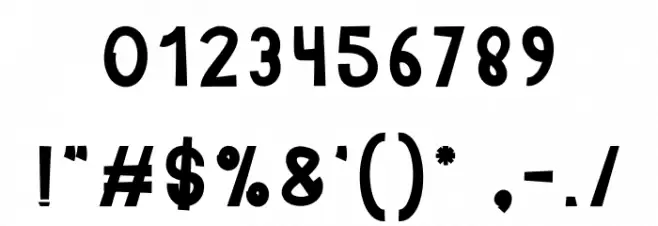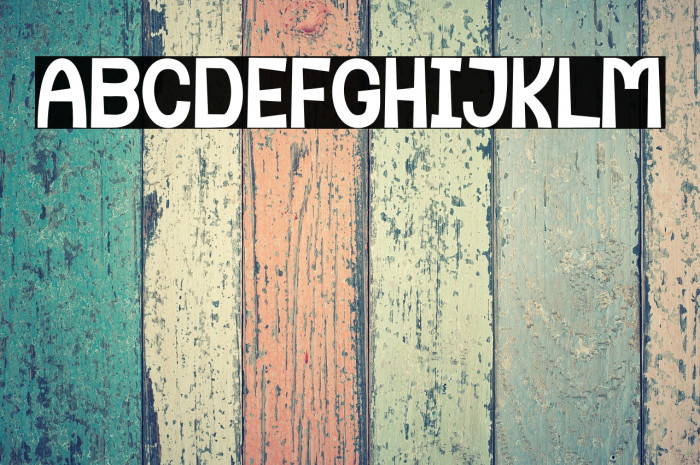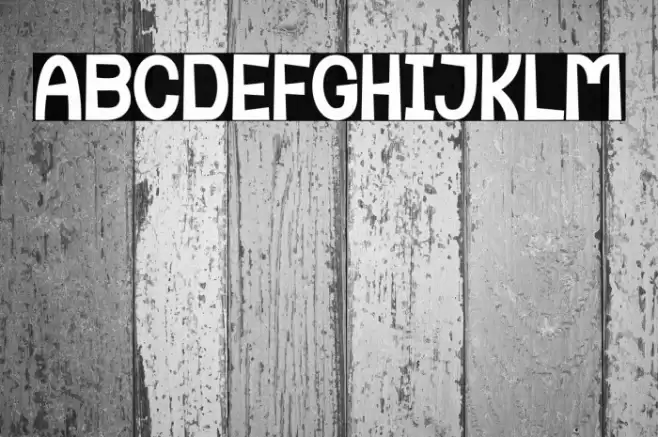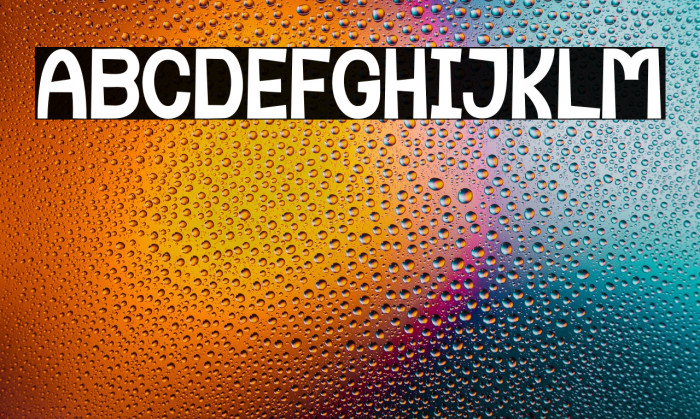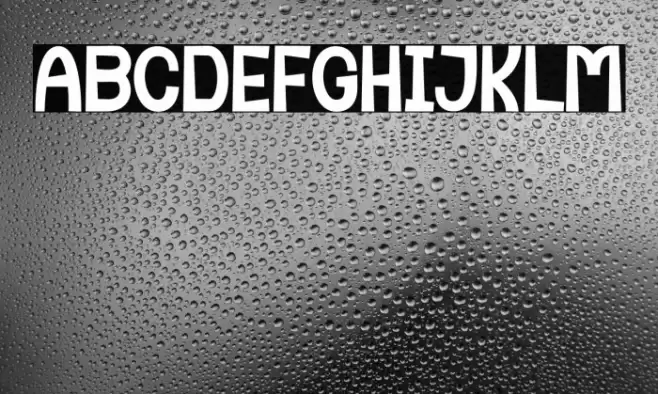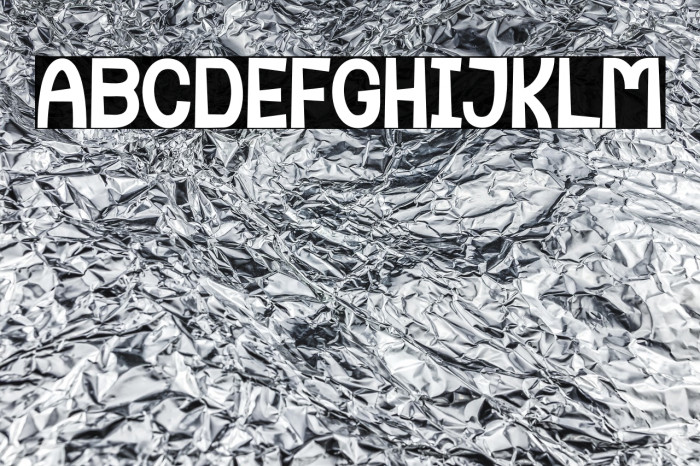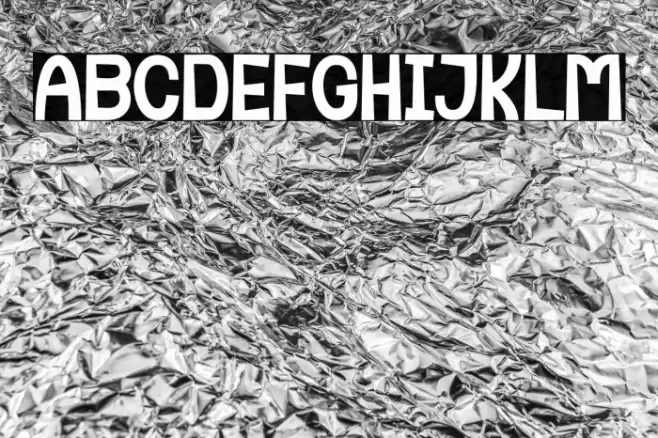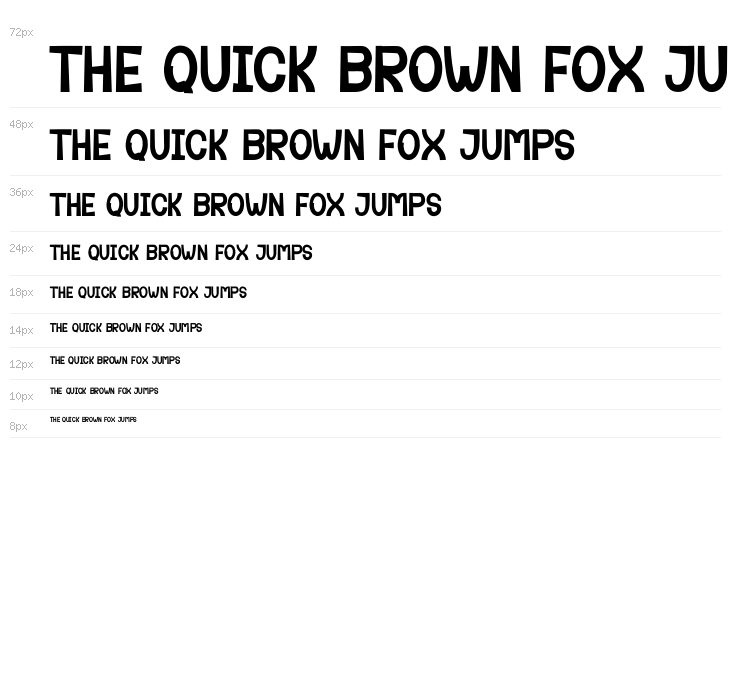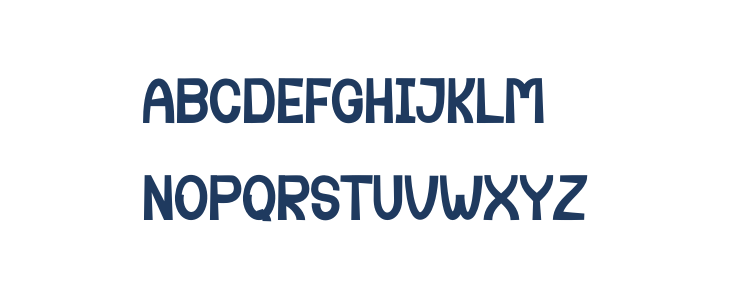
Lonely Night Font
Lonely Night Description
This font exhibits a playful and bold style, characterized by its thick strokes and slightly irregular shapes. The letters have a whimsical, hand-drawn appearance, giving them a unique and artistic flair. The uppercase and lowercase letters maintain a consistent weight, contributing to a cohesive look. The numerals and special characters follow the same design principles, ensuring uniformity across all glyphs. This font's distinctive style makes it stand out, ideal for creative and informal projects.
| Overall Style | Playful, Artistic, Whimsical |
| Proposed Projects | Ideal for children's books, playful branding, posters, and creative invitations. |